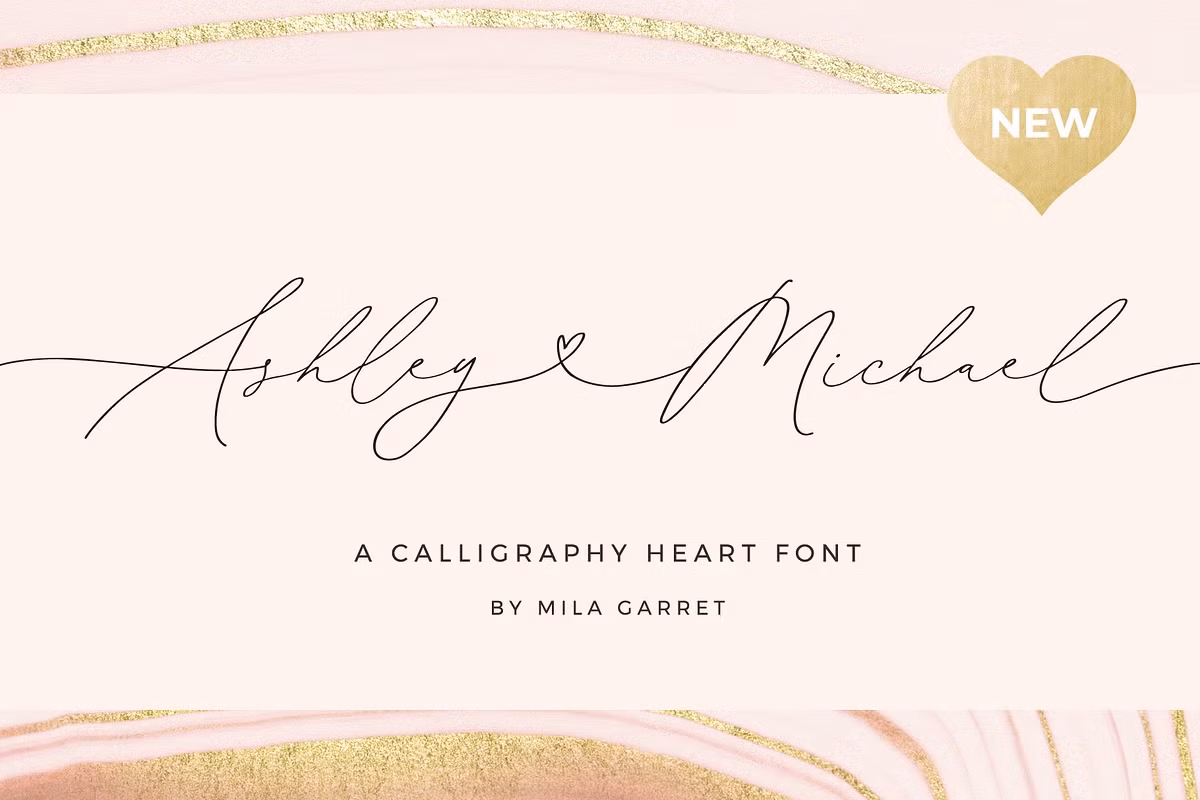
Ashley Michael Heart Wedding Script Free Download
Ashley Michael Heart Wedding Script Free Download is an elegant and romantic script typeface designed specifically for weddings and special occasions. With its flowing, heart-shaped letterforms and graceful curves, this font adds a personal and sophisticated touch to invitations, logos, and stationery. Its elegant design is perfect for any project that requires a romantic, handwritten feel.